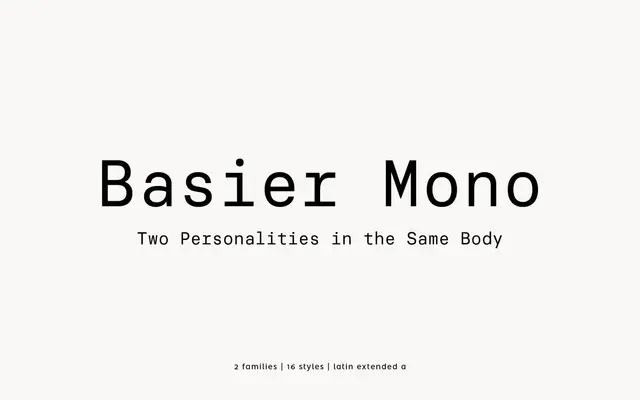
Basier Mono
Basier Mono specimen from atipo foundry
The monospaced companion to Basier, drawn in Circle and Square cuts for code, technical writing and interface work.
A monospaced sans by atipo foundry that completes the Basier system. It is drawn in two parallel cuts, Mono Circle and Mono Square, each running from Regular through Medium and SemiBold up to Bold with matching italics. OpenType features include stylistic alternates and a full set of fractions, superiors and ordinals. Designed to pair with the proportional Basier in the same layout, it is well suited to code, technical writing, dashboards and product interfaces.
The monospaced cut of the Basier system, drawn in Circle and Square variants so it can pair with the proportional Basier in the same layout. Built for code, technical writing and interface work.